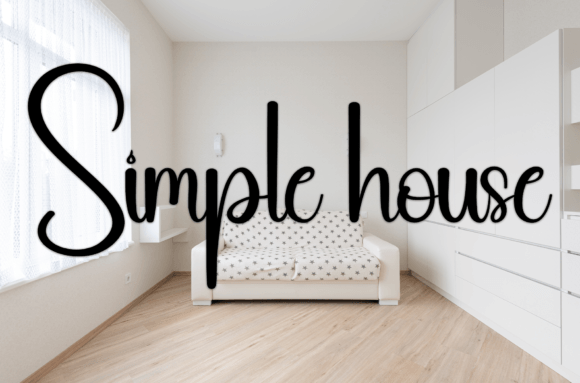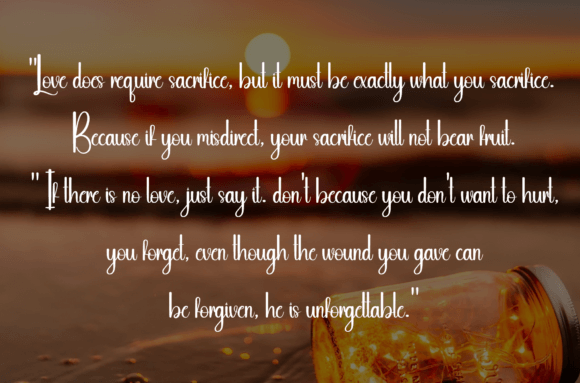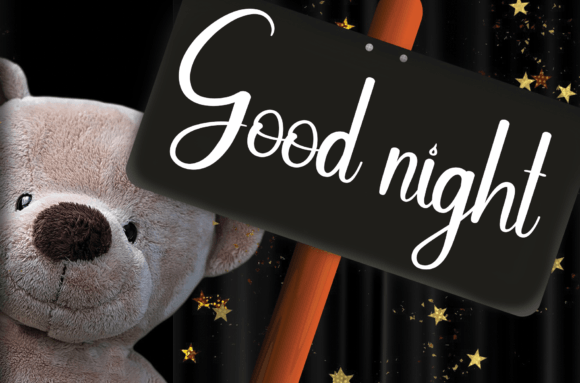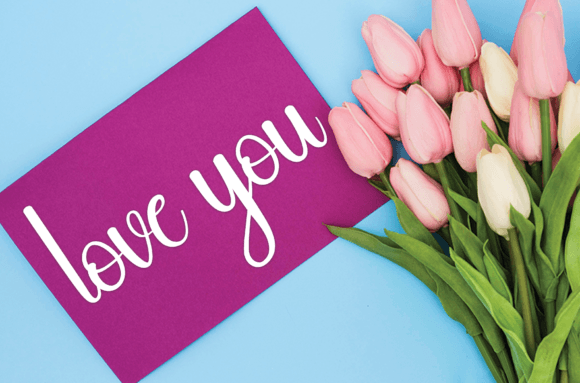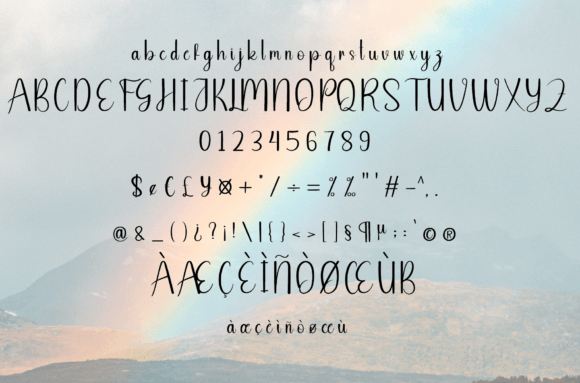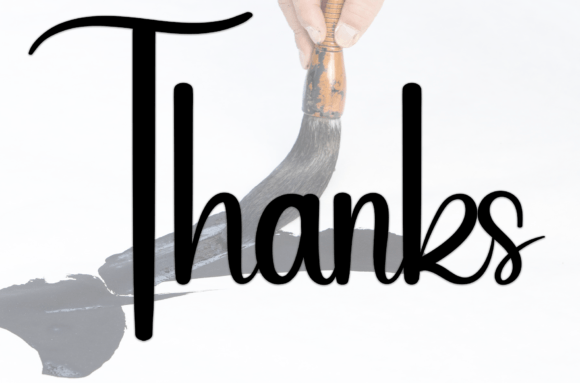
The Sweet Spot: Discovering the Charm of Butter Shine Font
I’ll never forget the time I was working on a wedding invitation project, and my client asked for a font that was “sweet, friendly, and playful.” I scoured the internet, tried out dozens of fonts, but nothing seemed quite right. That was until I stumbled upon Butter Shine Font. ✨ It was love at first sight! The elegant yet approachable handwritten style won me over, and I knew I had found the perfect fit for my project.
An Honest Review of Butter Shine Font
- ✨ Sweet and Friendly: Butter Shine Font has a warm, inviting feel that’s perfect for creating a sense of joy and celebration.
- ✅ Highly Legible: Despite its playful nature, this font remains clear and easy to read, even at smaller sizes.
- 🎉 Versatile: From wedding invitations to greeting cards, and even social media graphics, Butter Shine Font adapts seamlessly to various design contexts.
While Butter Shine Font is an excellent choice for many projects, it’s not without its quirks. ⚠️ Some users may find that:
- 🤔 Limited Formality: As a handwritten font, Butter Shine may not be the best fit for very formal or corporate designs.
- ⚠️ Glyph Limitations: While the font includes a range of standard characters, it may not have extensive support for non-English languages or specialty glyphs.
A Practical Guide to Using Butter Shine Font
The Story Behind Butter Shine Font
Butter Shine Font was designed with the intention of creating a sweet, approachable handwritten font that would bring joy to designers and their clients. The designer, inspired by the beauty of handwritten letters and the warmth of childhood memories, crafted Butter Shine to be a versatile and delightful addition to any design project.
Q: What type of projects is Butter Shine Font best suited for?
A: Butter Shine Font is ideal for designs that require a friendly, playful touch, such as wedding invitations, greeting cards, and social media graphics.
Q: Does Butter Shine Font support non-English languages?
A: While Butter Shine Font includes a range of standard characters, its support for non-English languages may be limited. Check the font’s documentation for specific details.
Q: Can I use Butter Shine Font in both print and digital designs?
A: Absolutely! Butter Shine Font is versatile and can be used in a variety of design contexts, from print materials like invitations and cards to digital designs like social media graphics and website headers.